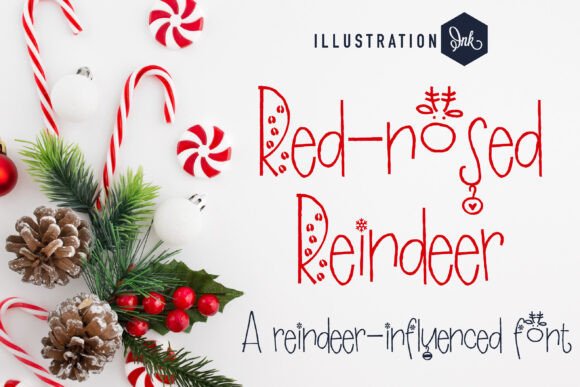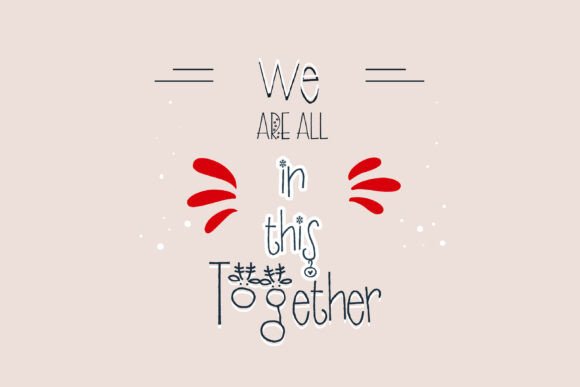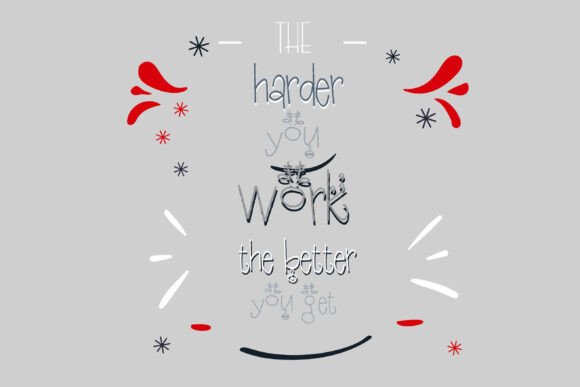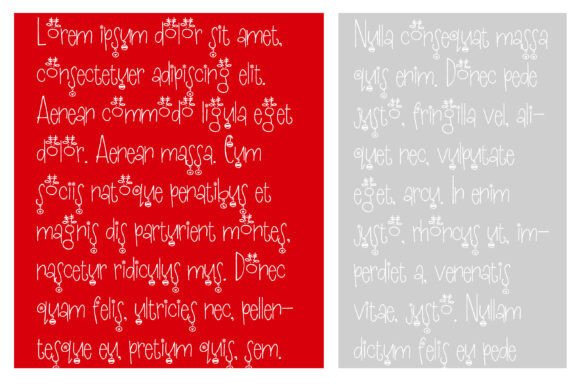
Red-nosed Reindeer Font
About the Red-nosed Reindeer Font
Presenting Red-nosed Reindeer Font, a unique and stylish typeface that will make your work stand out. This hand-crafted font is a whimsical sans serif with reindeer faces throughout.
Red-nosed Reindeer Font shines in applications requiring a playful and approachable feel, such as children’s books, holiday branding, or whimsical packaging designs. Its unique character makes it ideal for short headlines, logos, and even social media graphics. However, the whimsical nature and varying character heights make it unsuitable for body text or UI elements where readability is paramount. Long blocks of text set in this font would be difficult to read.
This font’s inherent charm pairs well with clean, neutral sans-serif fonts like Open Sans for body copy, creating a balanced contrast between the playful headline and easily readable text. For a more sophisticated look, consider pairing it with a classic serif like Garamond or a slightly more modern geometric sans-serif like Montserrat. Avoid pairing it with other highly decorative or script fonts, as this might create visual clutter.
The overall personality of Red-nosed Reindeer Font is undeniably cheerful and light-hearted, yet maintains a handcrafted charm. It’s a font best suited to projects that embrace whimsy and a touch of festive spirit.
Red-nosed Reindeer Font Usage Examples
Red-nosed Reindeer Font Example